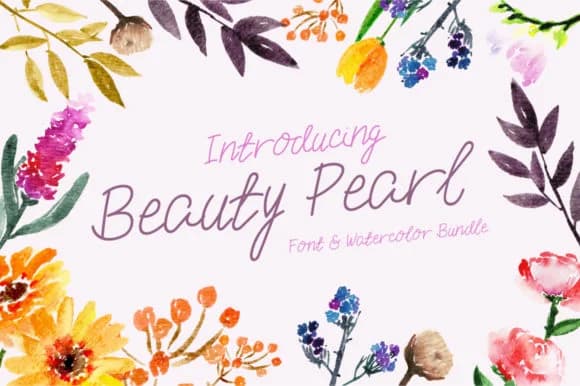
Beauty Pearl by atasistudio is a contemporary signature script that channels refined sophistication into every letterform. The flowing, organic strokes capture the essence of handwritten elegance while maintaining modern clarity, making it an excellent choice for luxury wedding stationery, upscale cosmetics branding, personal signature logos, and bespoke event invitations. The font's carefully crafted curves work beautifully across both digital and print applications, allowing designers to infuse their work with understated class and distinction.
As a bonus, Beauty Pearl includes a collection of complementary watercolor illustrations that extend its design potential. These decorative elements integrate seamlessly with text on packaging, social media graphics, and printed collateral, creating visually cohesive designs without requiring additional creative resources. Whether you're developing luxury product labels, boutique stationery sets, premium brand identities, or high-end greeting card collections, this complete package offers a unified aesthetic solution that strengthens visual consistency across all applications.
Beauty Pearl Font is a script font that shines as a display or heading face. Pair it with a clean sans-serif or serif font for body text β the contrast creates a clear hierarchy while the two styles stay balanced and easy to read.